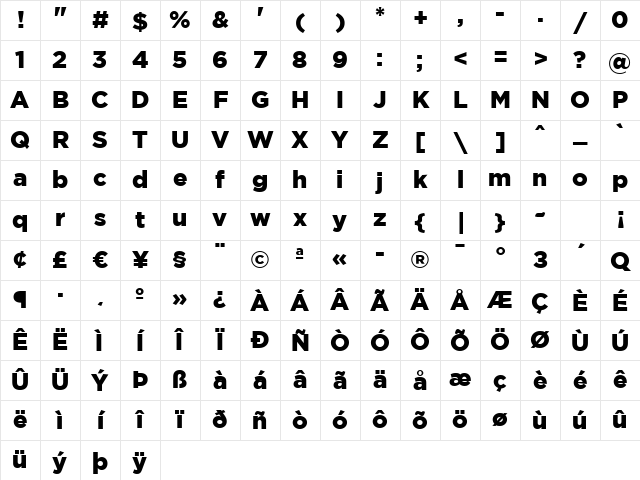
Black Regular
Foundry: HTF Gotham Copr. The Hoefler Type Foundry, Inc
Design Context for Black
Black is a composed and adaptable typeface that performs quietly and consistently across a wide range of design contexts.